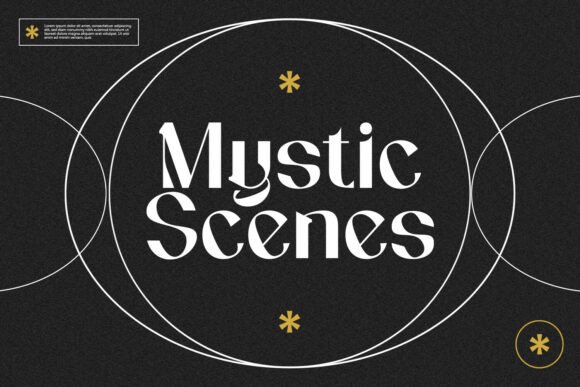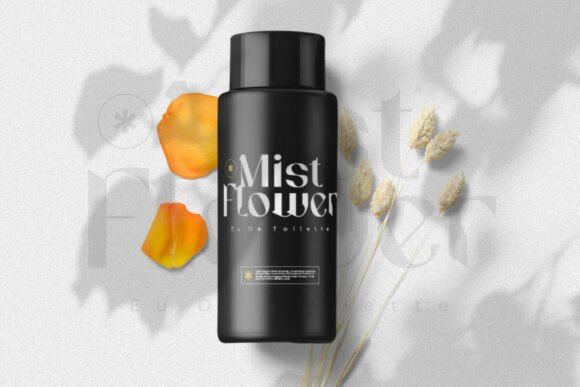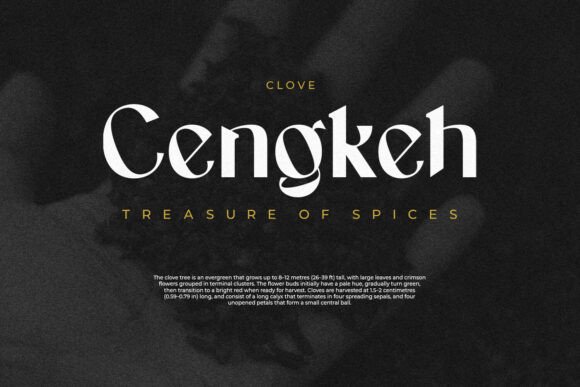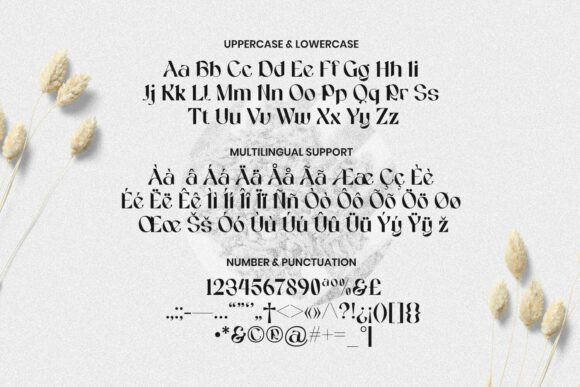
Introduction to Gofannon Font
Introducing Gofannon, a stunning display serif font that masterfully blends timeless elegance with a sharp, modern edge.
With its dramatic high contrast letterforms and unique, graceful details, Gofannon is designed to make a memorable statement in any creative project Gofannon exudes an air of luxury.